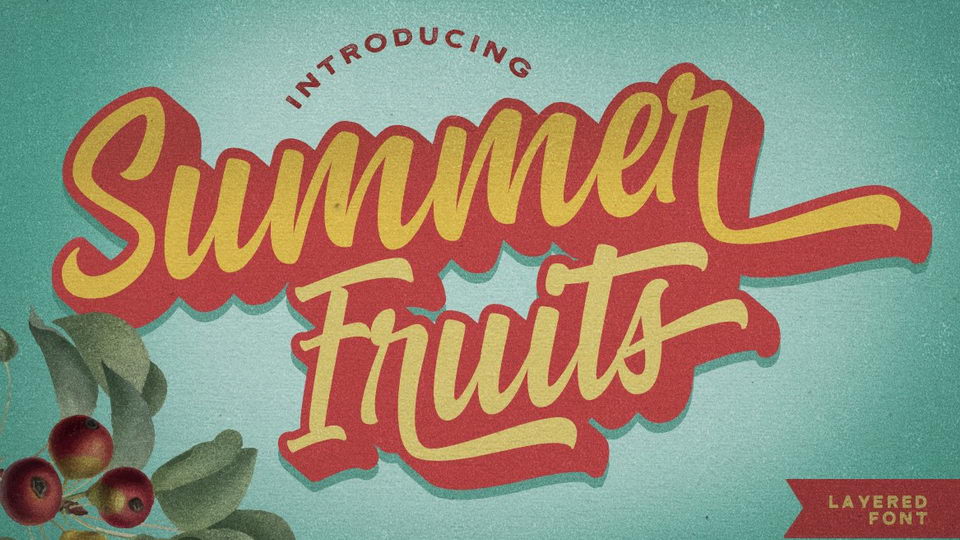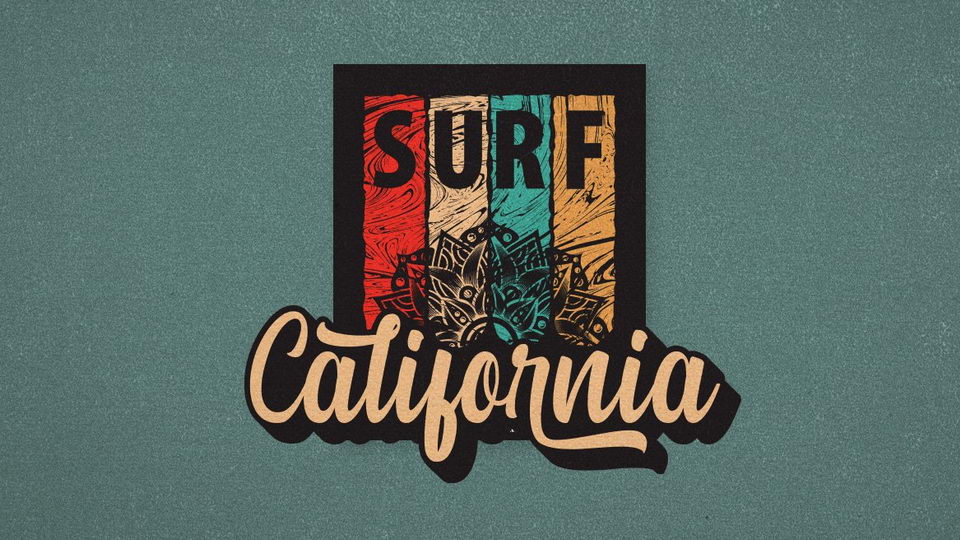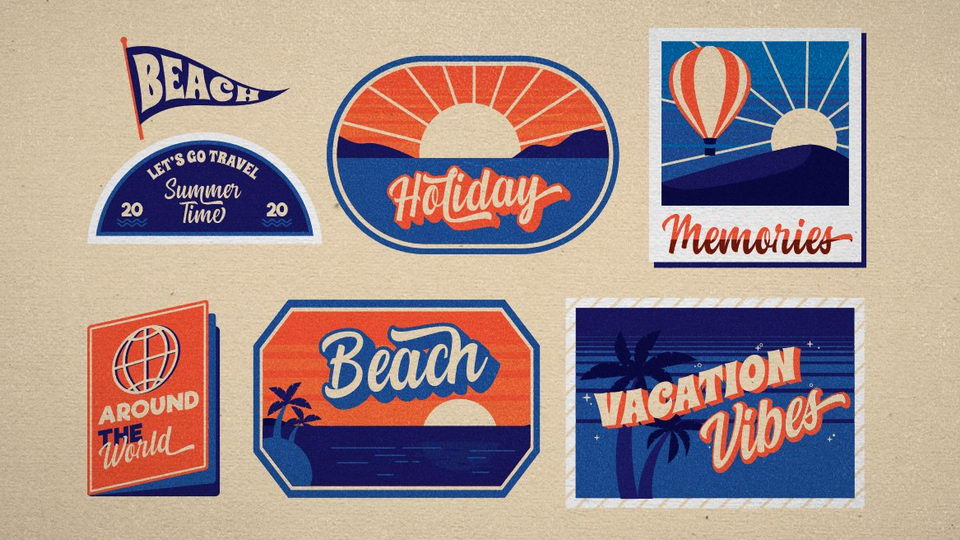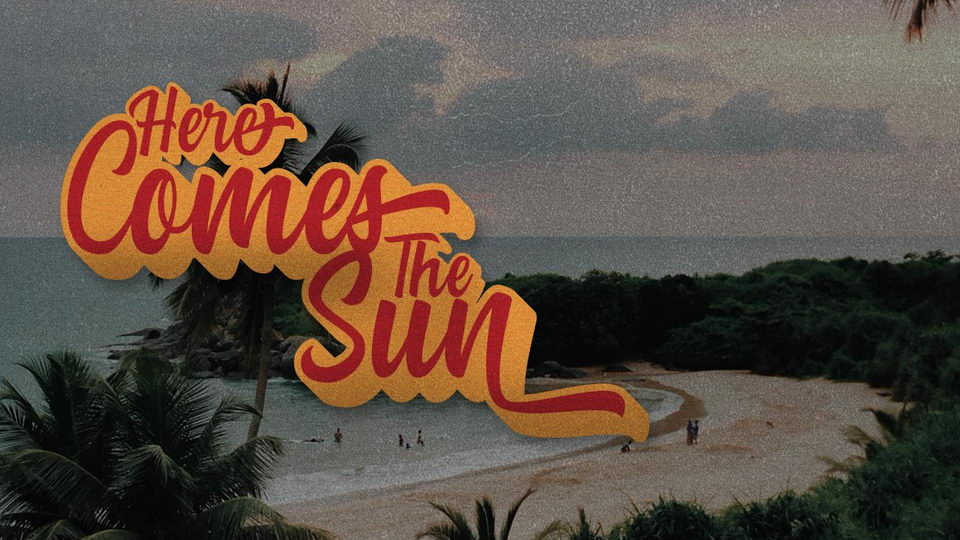
Summer Fruits Script
Summer Fruit is a bold vintage script that comes with extrude effect. Inspired by retro typography designs style in 70’s.
You won’t need extra effort for create an extrude effect for this font. It is because we include the extrude with this font. This mean you can saves your time by only adding the extrude font on the back layer.